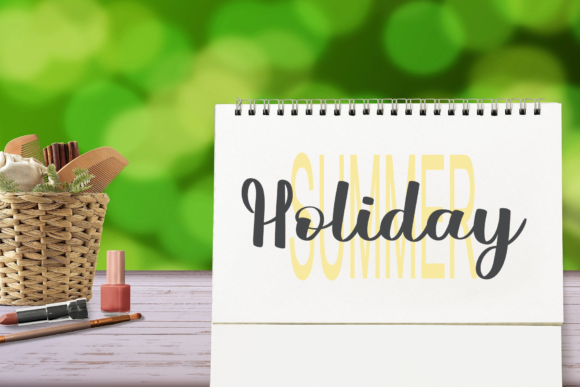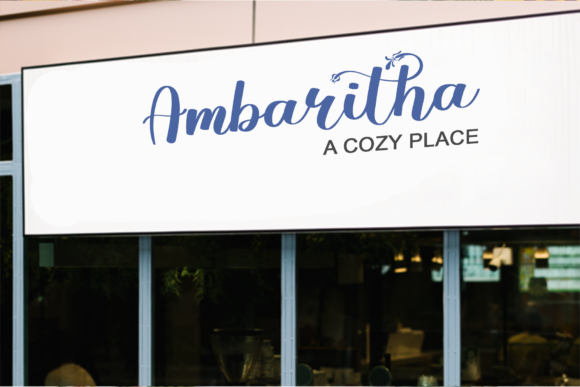
Juneteenth Font
db-ku.com - Script & Handwritten -- Juneteenth is a refined and elegant handwritten font. Dainty and joyful, this font will be ideal for writing wedding invitations, cards or any other design that may need a romantic, personalized touch!